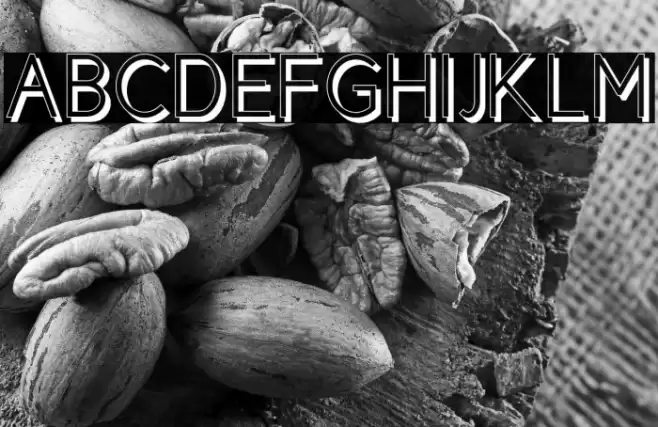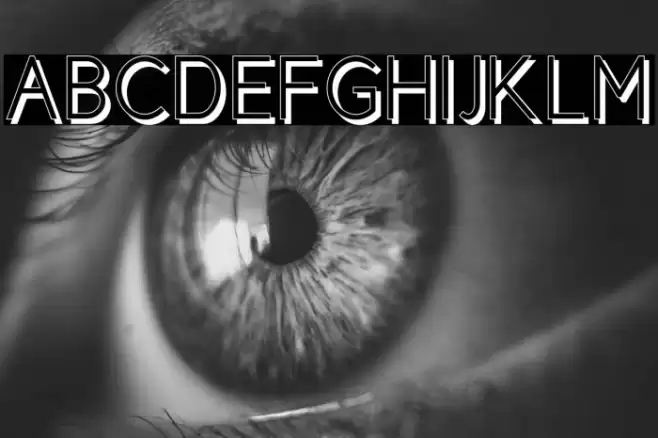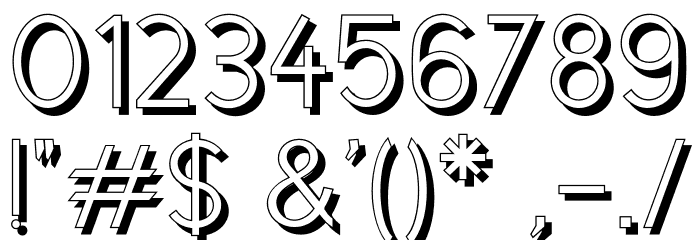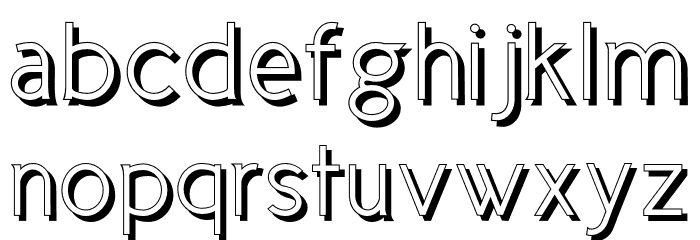
CicleShadow Font
CicleShadow Description
This font features a distinct shadow effect that adds depth and dimension to each character. The letters are clean and geometric, with a modern sans-serif style that is both stylish and versatile. The shadowing is consistent across all characters, providing a cohesive look that enhances readability while adding a unique visual interest. The uppercase and lowercase letters maintain a uniform width, and the numerals are designed to match the overall aesthetic. Special characters are included, each with the same shadow detail, making this font suitable for a variety of design needs.
A modern sans-serif font with a unique shadow effect for added depth from Sans Serif fonts.
- Proposed Projects: Ideal for branding, posters, headlines, and any design project that requires a modern and eye-catching typeface.